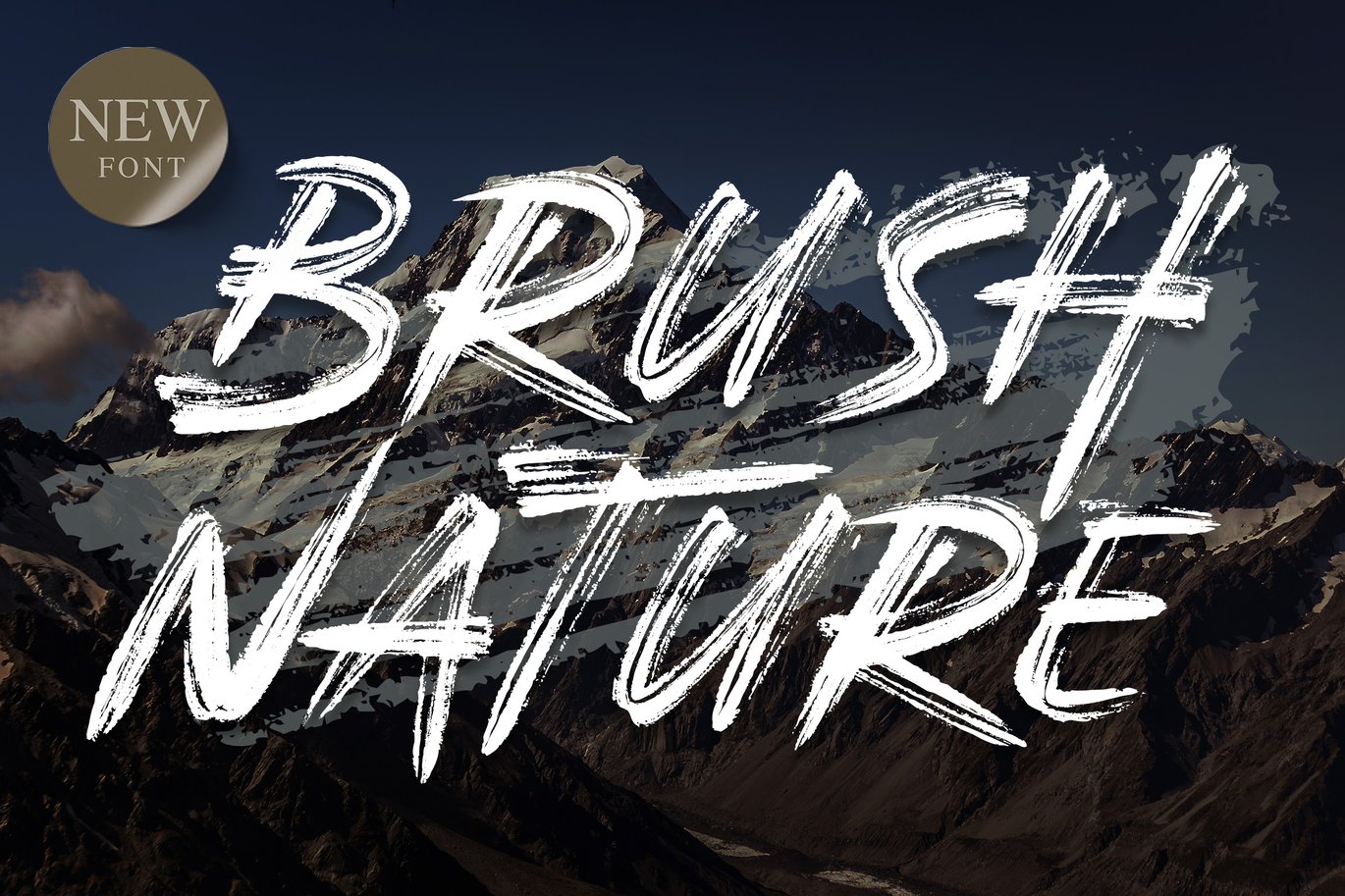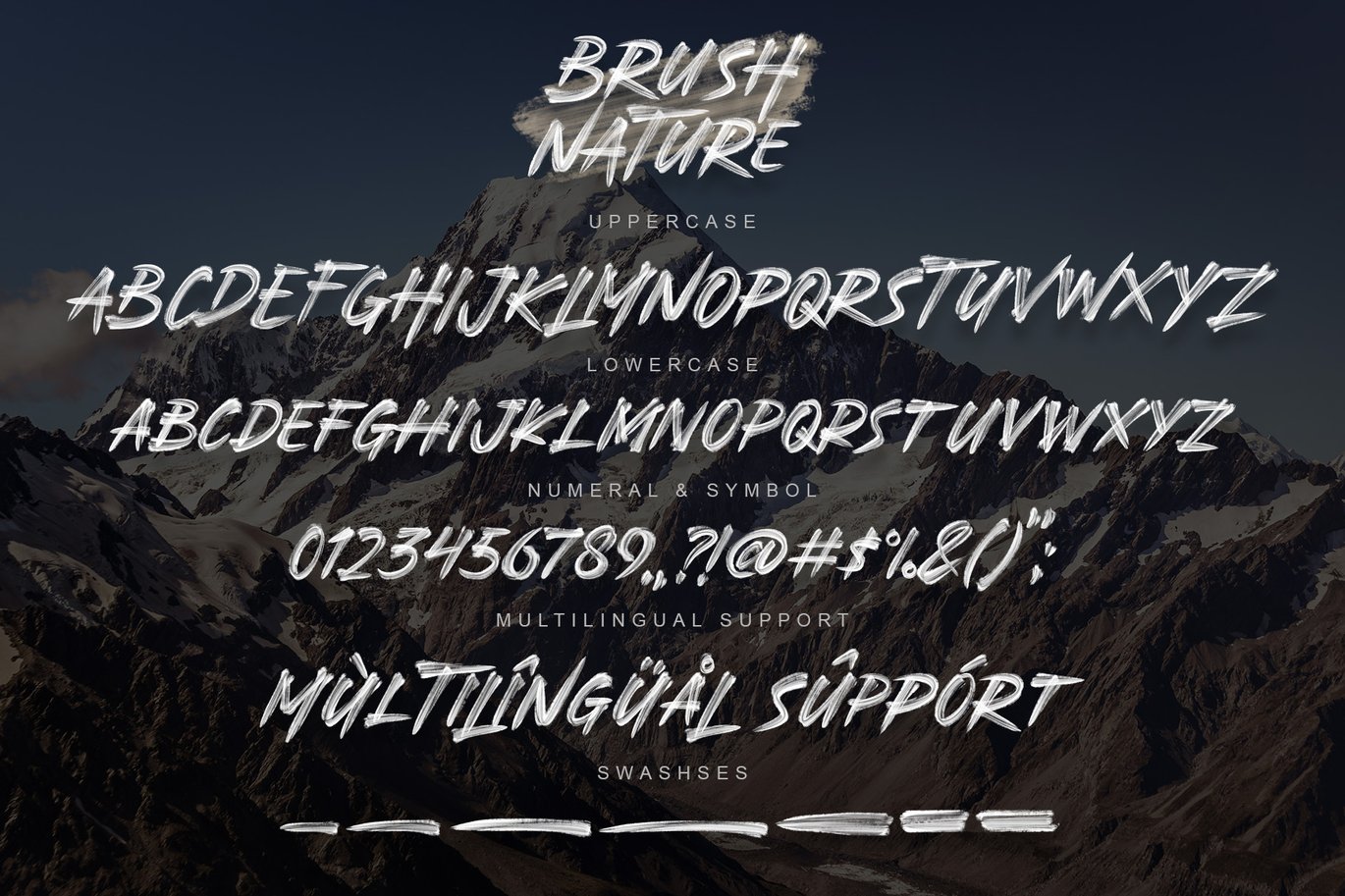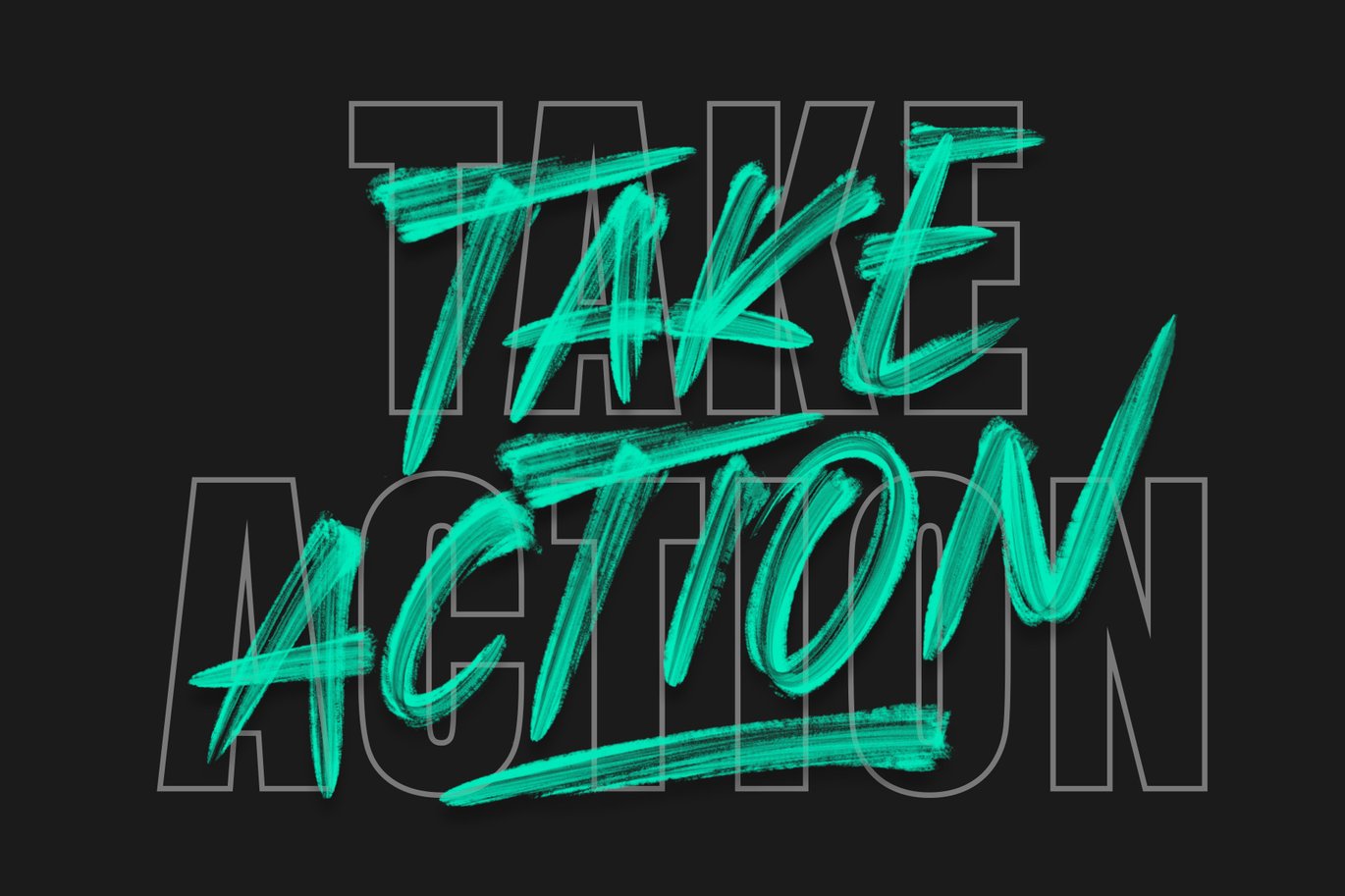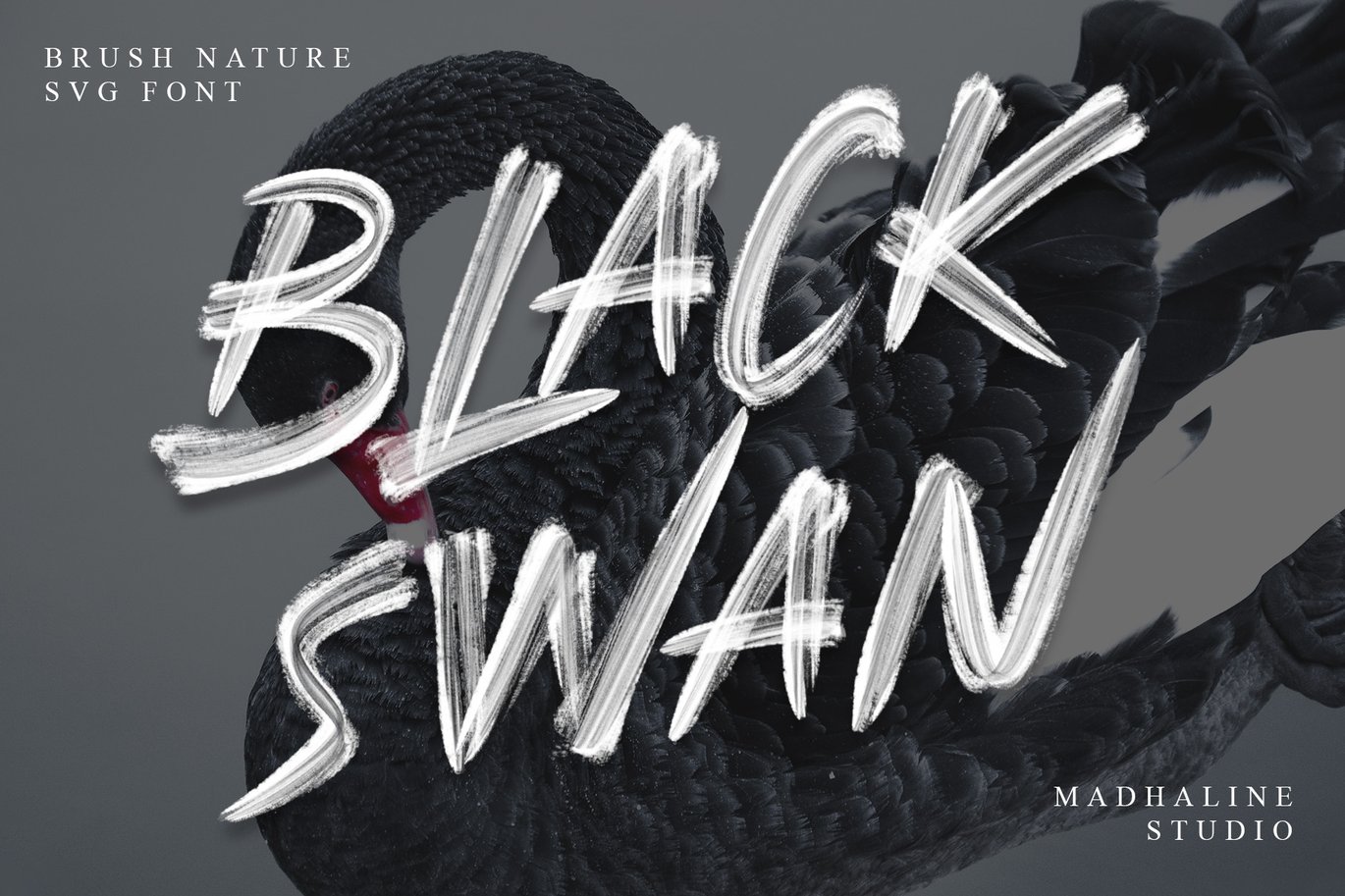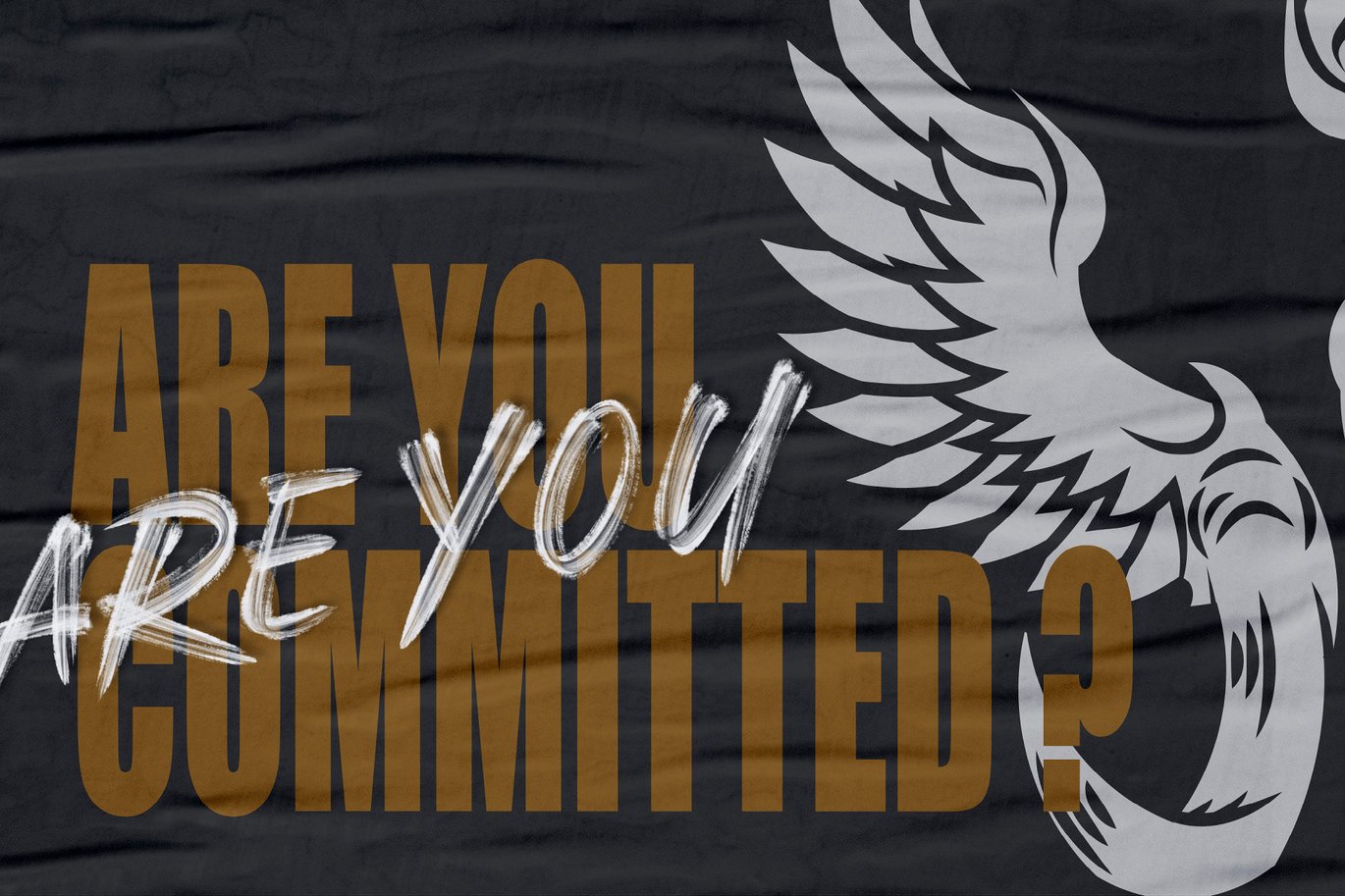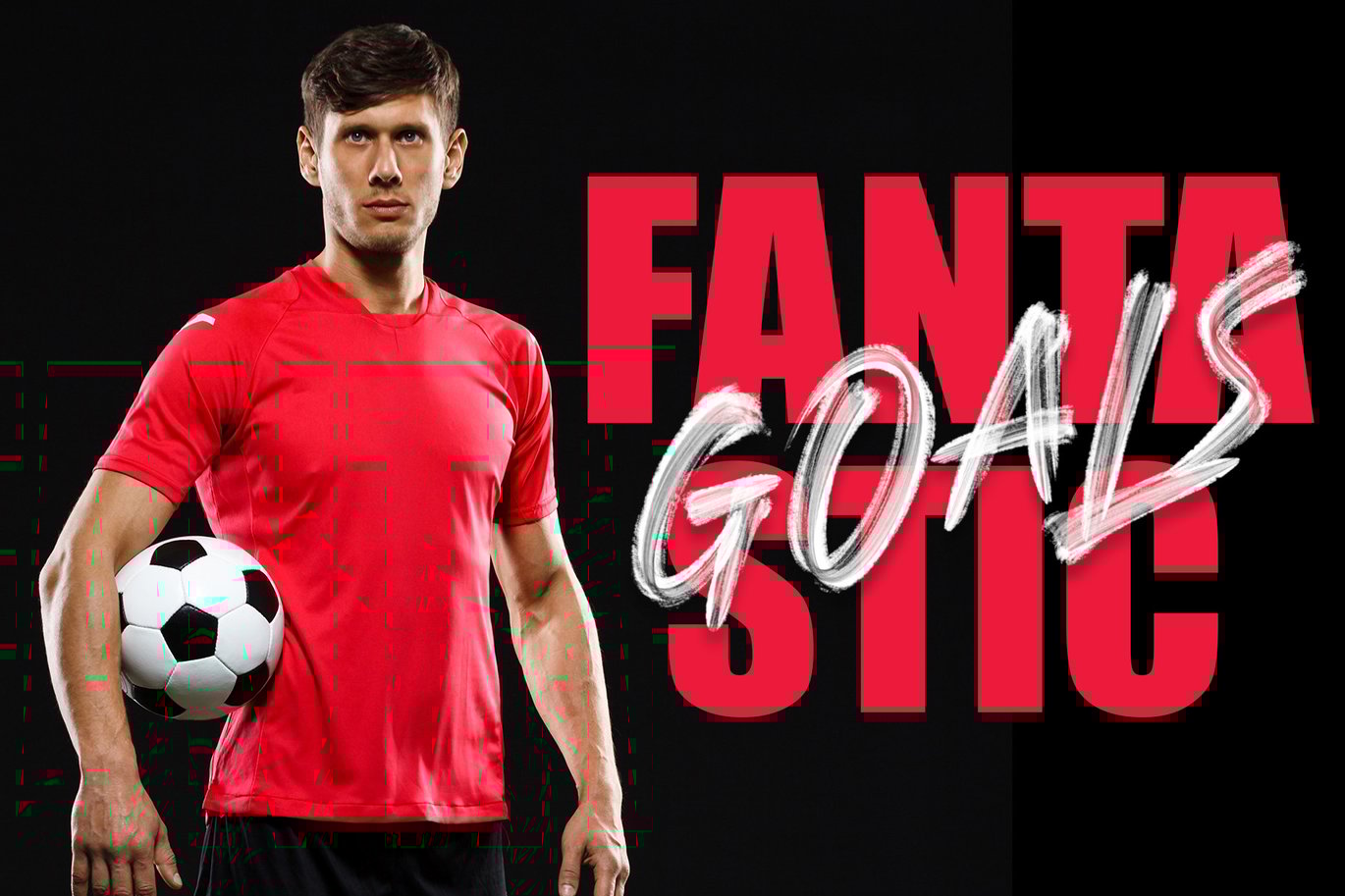
Brush Nature | Realistic Brush Font
Brush Nature is a handcrafted font, featuring a natural brush style. Created in SVG format, it produces a font with a realistic brush stroke feel.
*Basic latin A-Z and a-z, Numbers, Punctuation, and Swashes